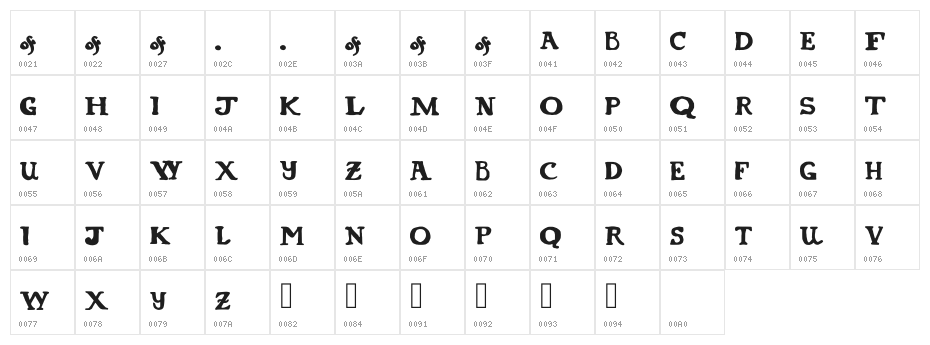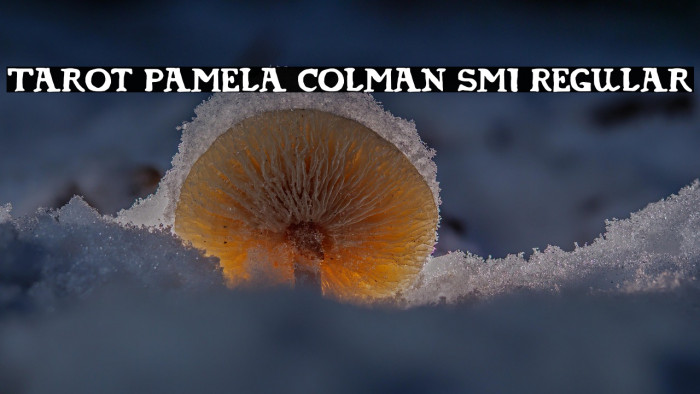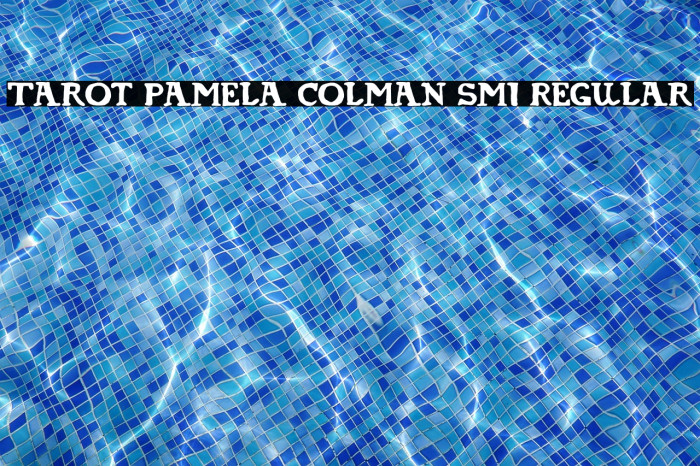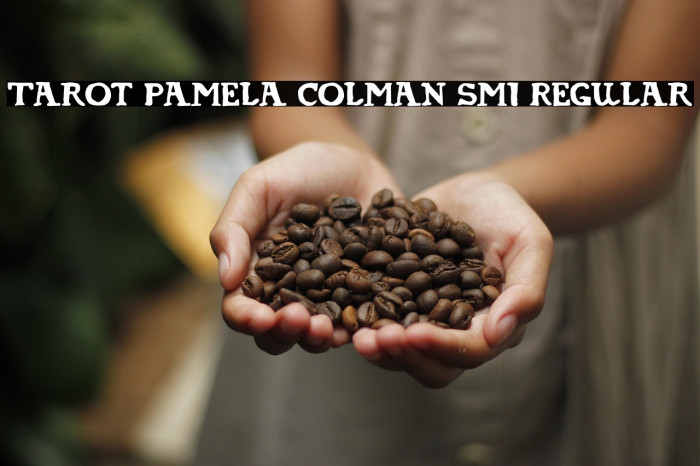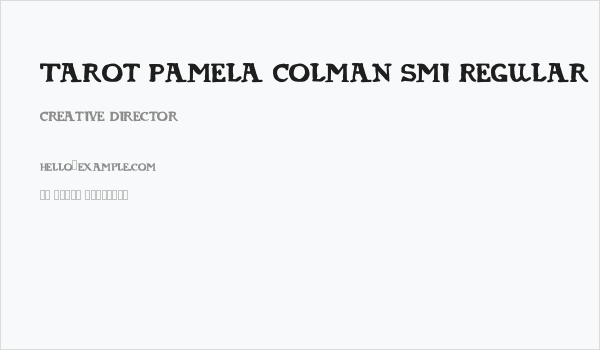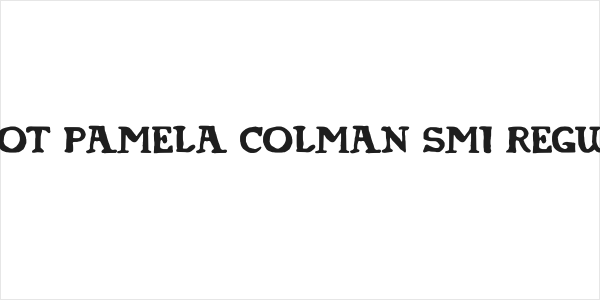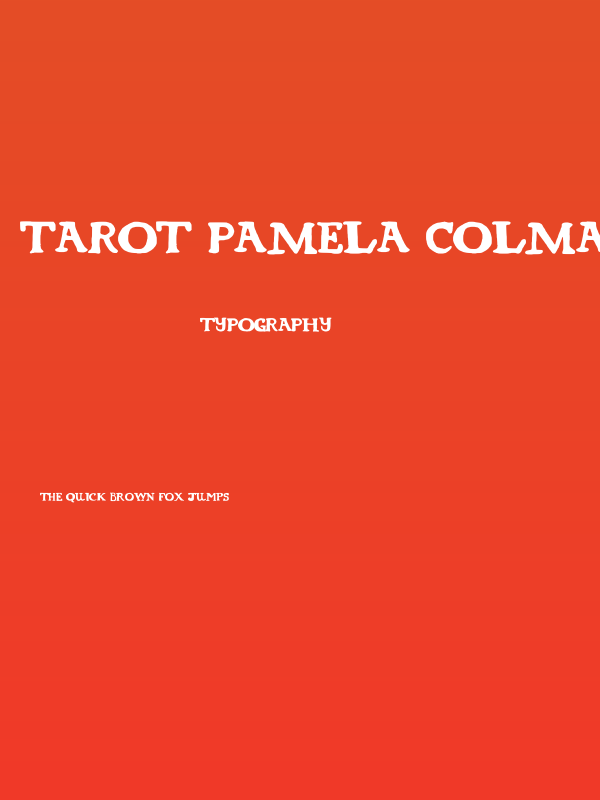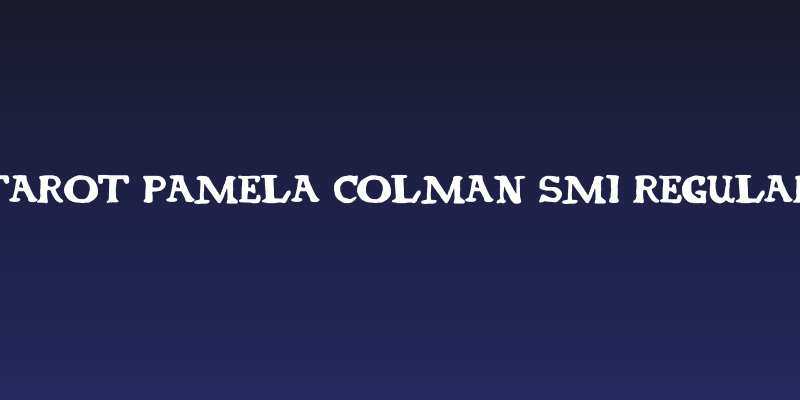
Tarot Pamela Colman Smi Regular Font
Tarot Pamela Colman Smi Regular Description
This font exudes a vintage and mystical charm, reminiscent of early 20th-century tarot card designs. The characters are bold and slightly irregular, giving them a hand-drawn appearance that adds to their unique personality. The strokes are thick with a medium contrast, and the serifs are pronounced yet not overly sharp, contributing to a classic yet whimsical feel. The overall style is decorative, making it suitable for projects that require a touch of the mystical or historical. The spacing between characters is normal, ensuring readability while maintaining its distinctive style.
| Overall Style | Vintage, Decorative |
| Proposed Projects | Ideal for tarot card designs, vintage posters, book covers, and themed event invitations. |